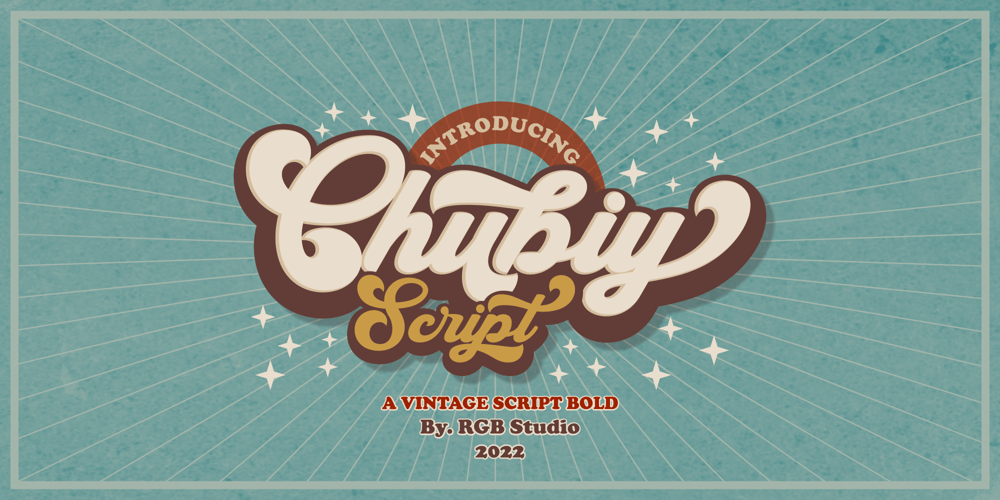
Chubiy Font Family was designed by MOH. MA’IN and published by RGB Studio. Chubiy contains 1 styles and family package options. Chubiy is a retro bold script style font, come with clean and rough font version. Inspired from retro typography and lettering in the 60’s and 70’s combine with bold typography style. This font perfect for vintage and retro design, badge, logos,t-shirt, poster, branding, packaging, signage, book coverand so much more! it has an extensive lingual support, covering European and Asian Latin scripts. The font contains all characters you’ll ever need, including all punctuation and numbers. What you get, darling? Files Include : Basic Latin A-Z and a-z Numbers Symbols PUA Encode Multi-language Support In order to use the beautiful swashes, you need a program that supports OpenType features such as Adobe Illustrator CS, Adobe Photoshop CC, Adobe Indesign and Corel Draw. but if your software doesn’t have Glyphs panel, you can install additional swashes font files: Thanks and have a wonderful day, If you have any questions, please get in touch with usDon’t forget to check out our other products.